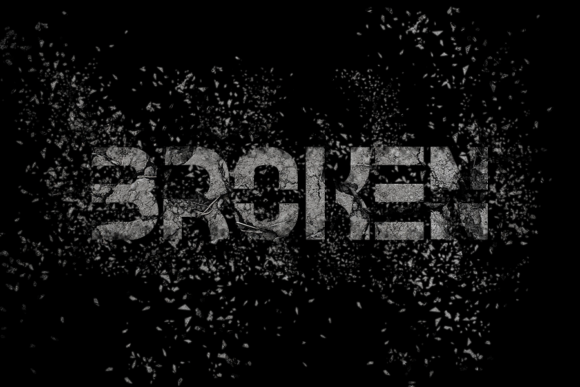
Unlock Your Creativity with the Bold Broken Font
Have you ever been working on a design project and felt like something was missing? That’s when the magic happens, and you stumble upon the perfect font to elevate your creation. For me, that moment came when I discovered the Broken Font. This cool, interesting, and bold display font has been a game-changer in my design process.
Broken Font is expertly designed to make your creation stand out from the crowd. Its unique style and versatility make it perfect for a wide range of projects, from bold headlines to eye-catching graphics. Whether you’re a seasoned designer or just starting out, Broken Font is a valuable tool to add to your arsenal. With its ability to add a touch of sophistication and edge to your designs, it’s no wonder Broken Font has become a favorite among designers.
Key Features of Broken Font
- Unique Characteristics: Broken Font features a distressed, hand-drawn aesthetic, with deliberate imperfections and irregularities that add a touch of uniqueness to any design.
Broken Font Review
I have to say, I was both intrigued and skeptical when I first laid eyes on Broken Font. The designer’s attempt to create a distressed, broken font is undeniably bold and eye-catching. ✨ The level of detail and texture they’ve managed to achieve is impressive, making it perfect for designs that need a touch of grit and imperfection.
- ✨ The font’s distressed look is consistently applied, creating a cohesive and cohesive visual identity.
- ✨ Broken Font’s unique texture and imperfections add an extra layer of interest to designs.
- ✨ The font is well-suited for use in bold, attention-grabbing headlines and titles.
However, there are some limitations to consider. ⚠️ The font’s broken nature can sometimes make it difficult to read, particularly in smaller sizes or when used for large blocks of text.
- ⚠️ The font’s texture and imperfections can be overwhelming if overused.
- ⚠️ Some characters may be difficult to distinguish from one another due to the font’s distressed look.
Overall, I think Broken Font is a great addition to any designer’s toolkit. While it may not be suitable for all types of projects, its unique look and feel make it perfect for designs that need a bit of edge and personality.
Broken Font is commonly used in creative and artistic projects, such as graphics, posters, and social media graphics. It’s also used in designs that require a distressed or vintage look.